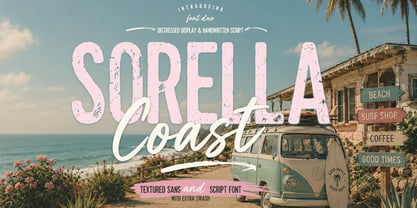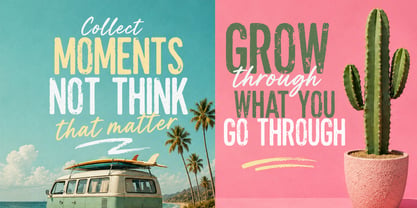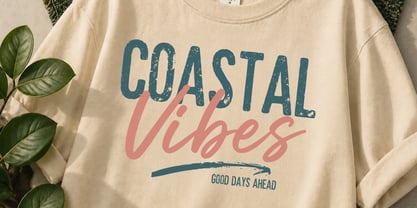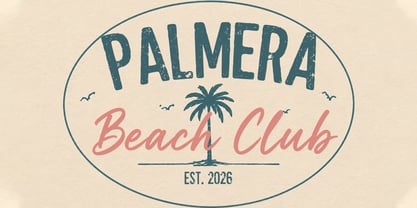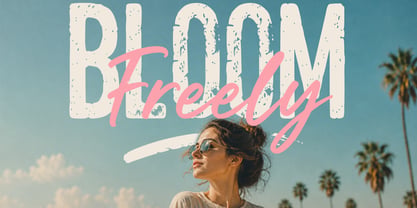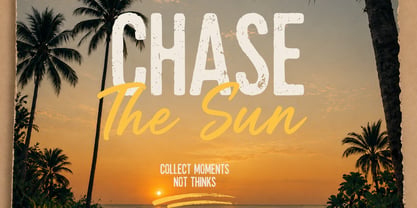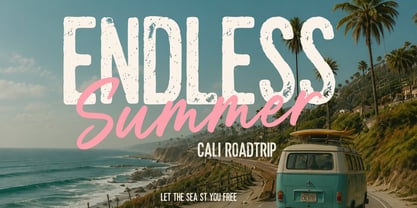
Sorella Coast
by Cocodesign
The Sorella Coast Font Family was designed by Muhammad Zaini and published by Cocodesign. Sorella Coast contains 3 styles and family package options. More about this family
Sorella Coast – Textured Sans & Handwritten Script Font Duo brings warm coastal vibes into every design. This stylish font duo combines a bold textured sans with a smooth handwritten script, inspired by sunny beaches, vintage surf culture, and relaxed summer adventures. This versatile pairing creates eye-catching typography with an effortless handcrafted feel. The bold display font features an authentic distressed texture that adds character and depth, while the flowing script provides a natural contrast for elegant signatures, branding, and creative highlights. Together, they achieve a perfect balance between bold and organic styles. Whether you're designing for modern brands, beach-inspired projects, or vintage aesthetics, Sorella Coast ensures every design stands out with a unique handcrafted look, making it ideal for branding, editorial, and web applications.
Designers: Muhammad Zaini
Foundry: Cocodesign